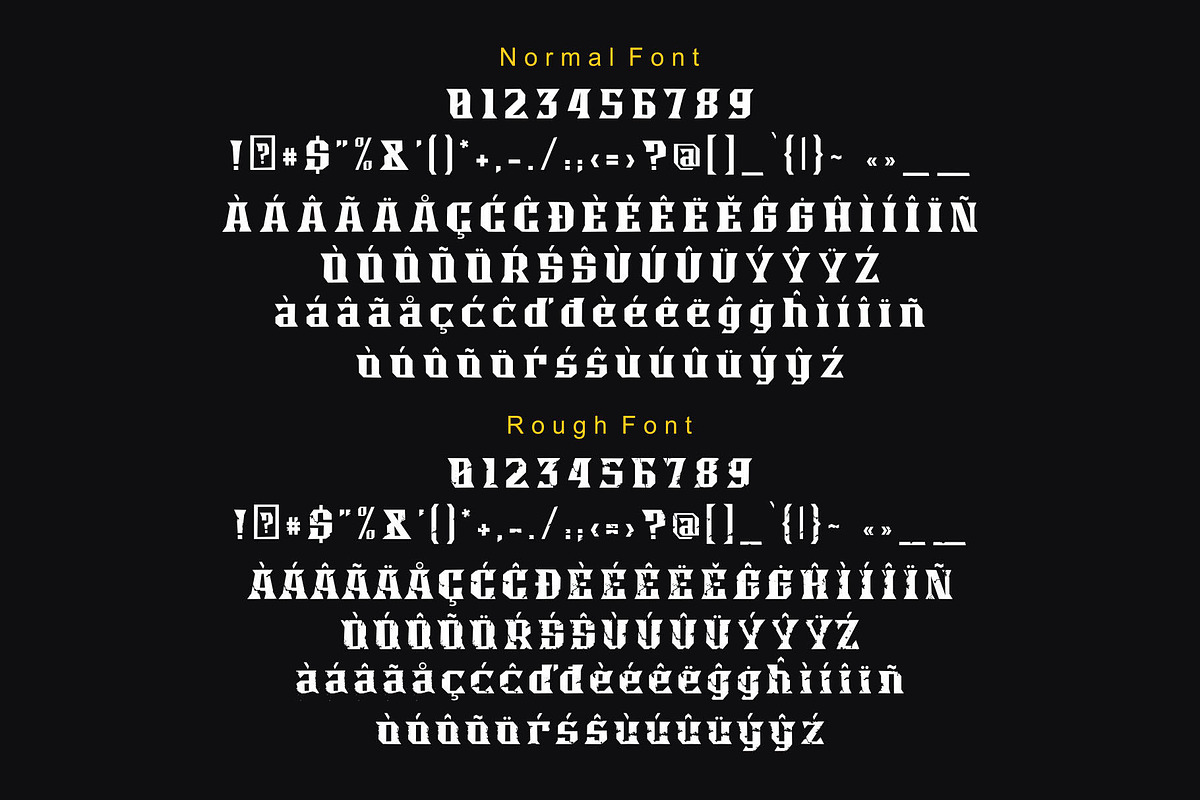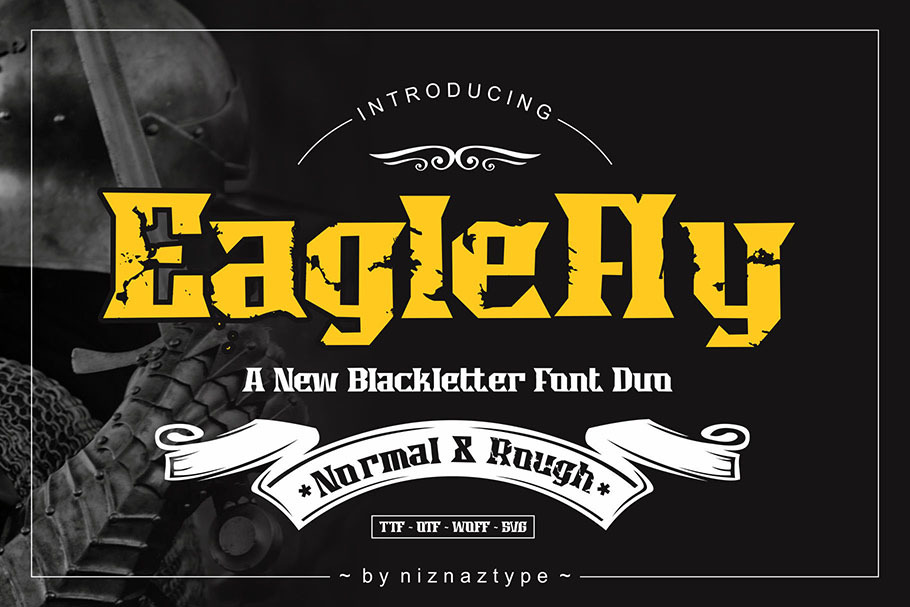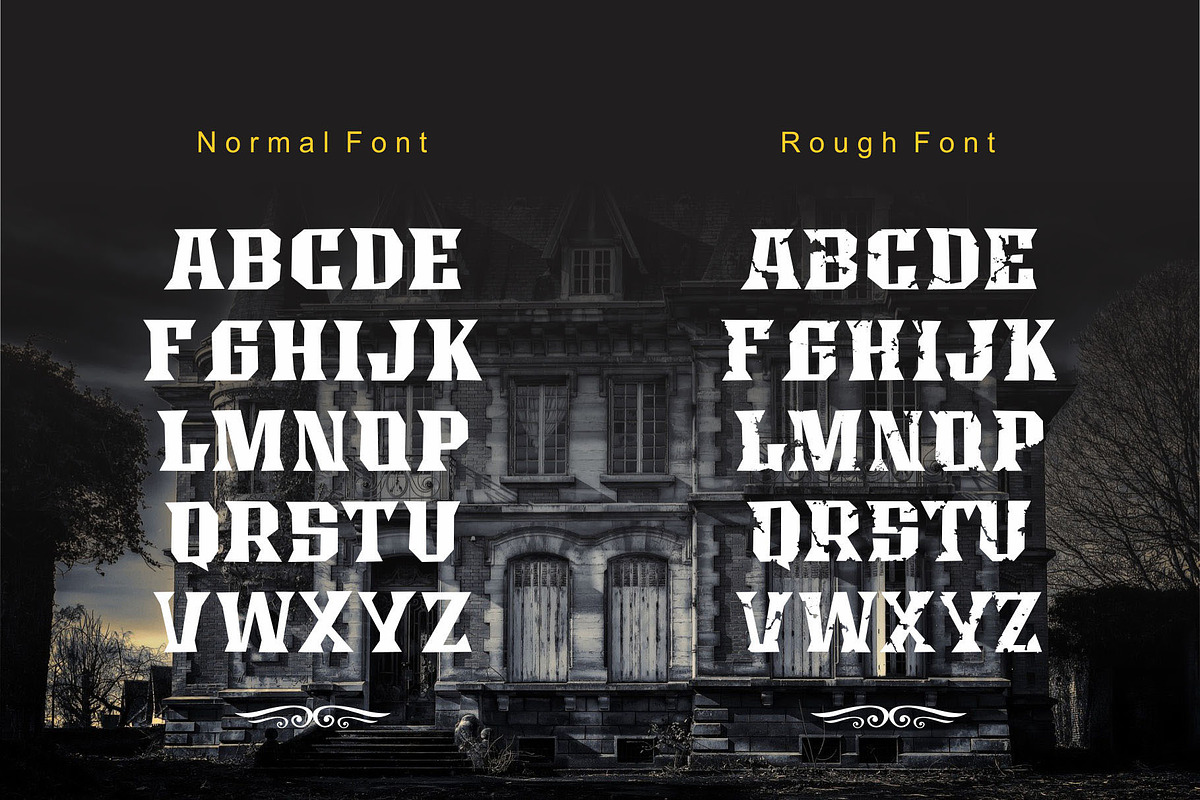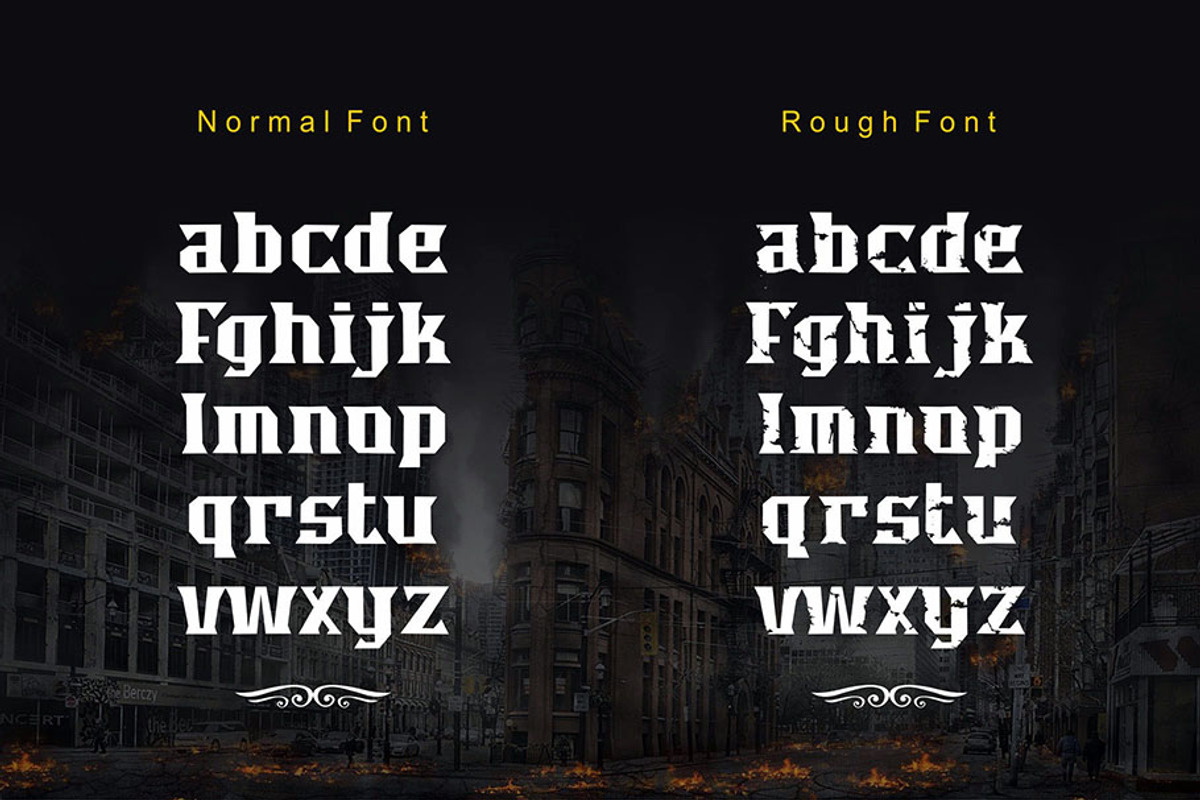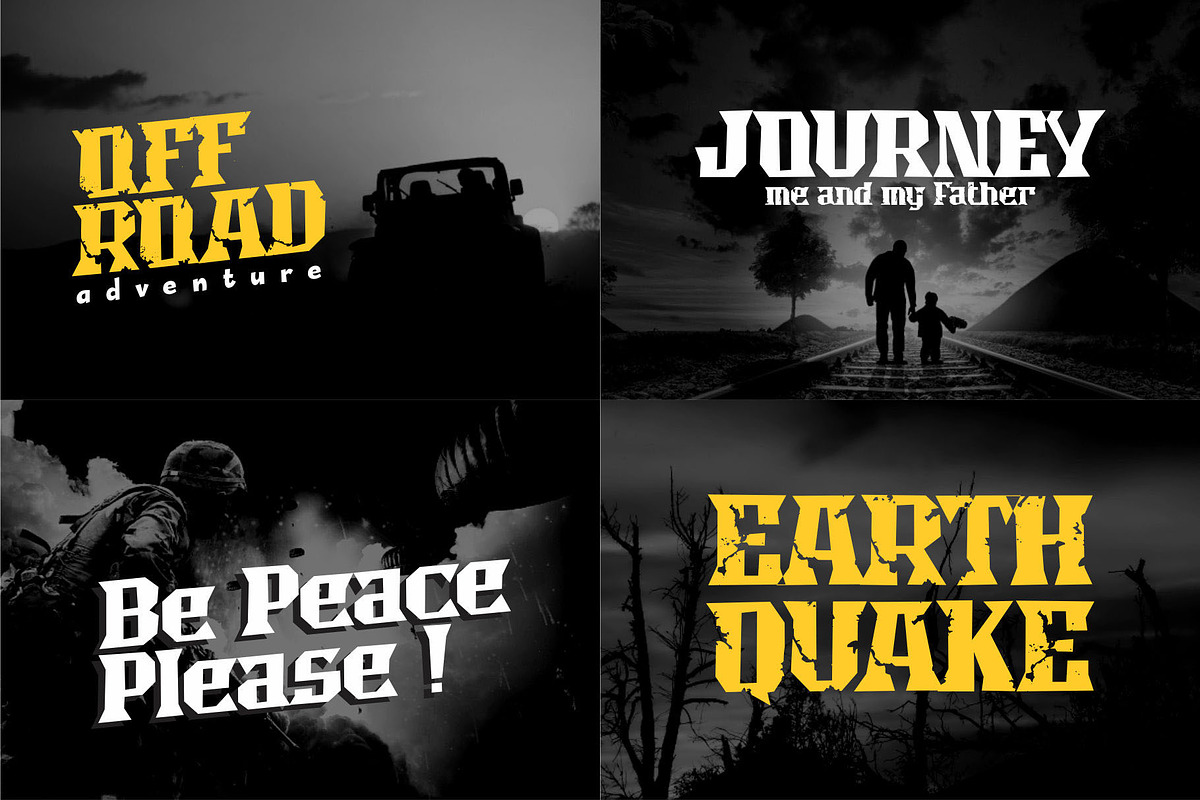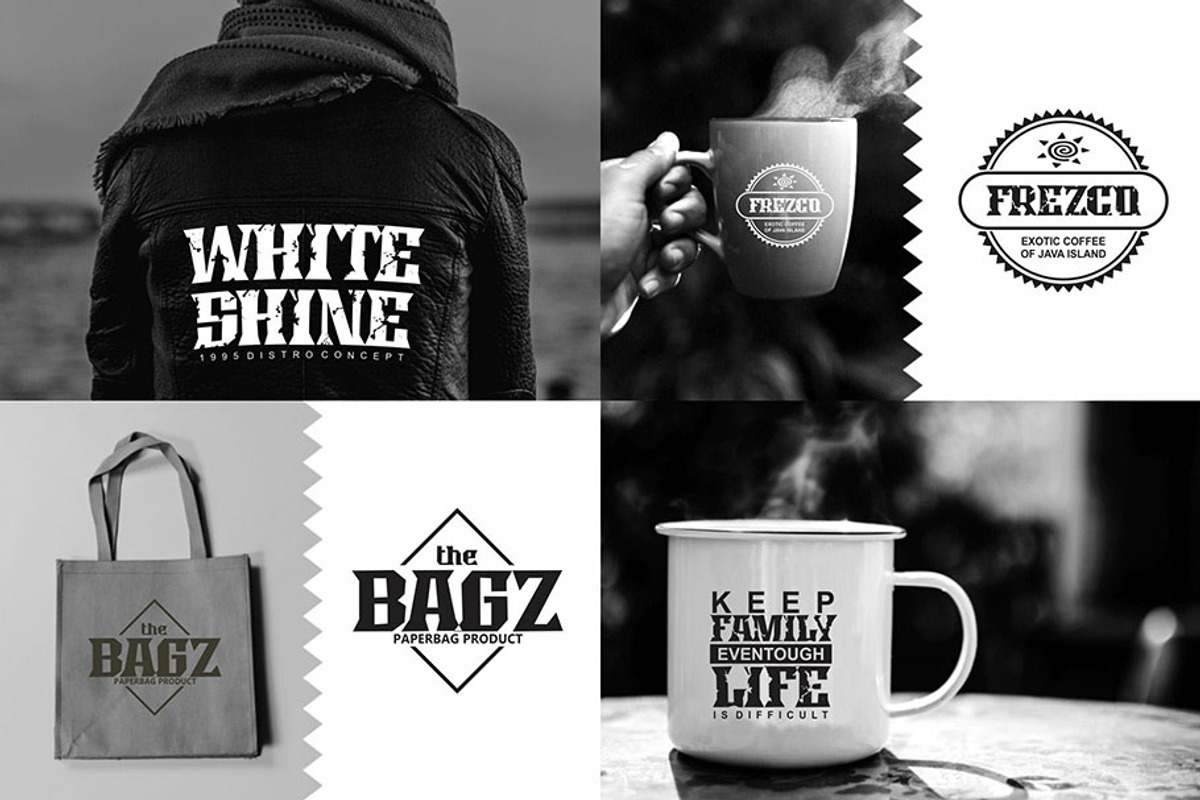
EAGLEFLY - Blackletter Font Duo
Introducing a new blackletter font. I give name it Eagley font. Eagley has style like gothic, blackletter, underground and rock ‘n roll. This font has two styles, normal and rough. Normal style has a formal character. Rough style has a freedom character. But both of them have a strong and dinamic in each glyphs. Eagley suitable for poster, t-shirt, cover and tittle. It give a different nuances in your designs. Eagley consist of :
- Numeral and punctuation